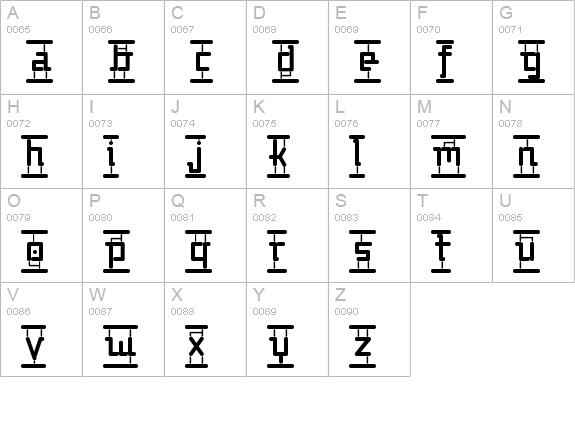
The Big In America font is a bold and eye-catching typeface that exudes a sense of grandeur and strength. With its thick, powerful strokes and modern aesthetic, this font is perfect for making a statement and commanding attention. Whether you're designing a poster, logo, or headline, Big In America will make your text stand out and leave a lasting impression. The best part? Big In America font is available for free download at FontsMarket.com. Yes, you read that right – you can get your hands on this stunning font without spending a dime. So why wait? Elevate your design projects with the Big In America font today and let your creativity shine!